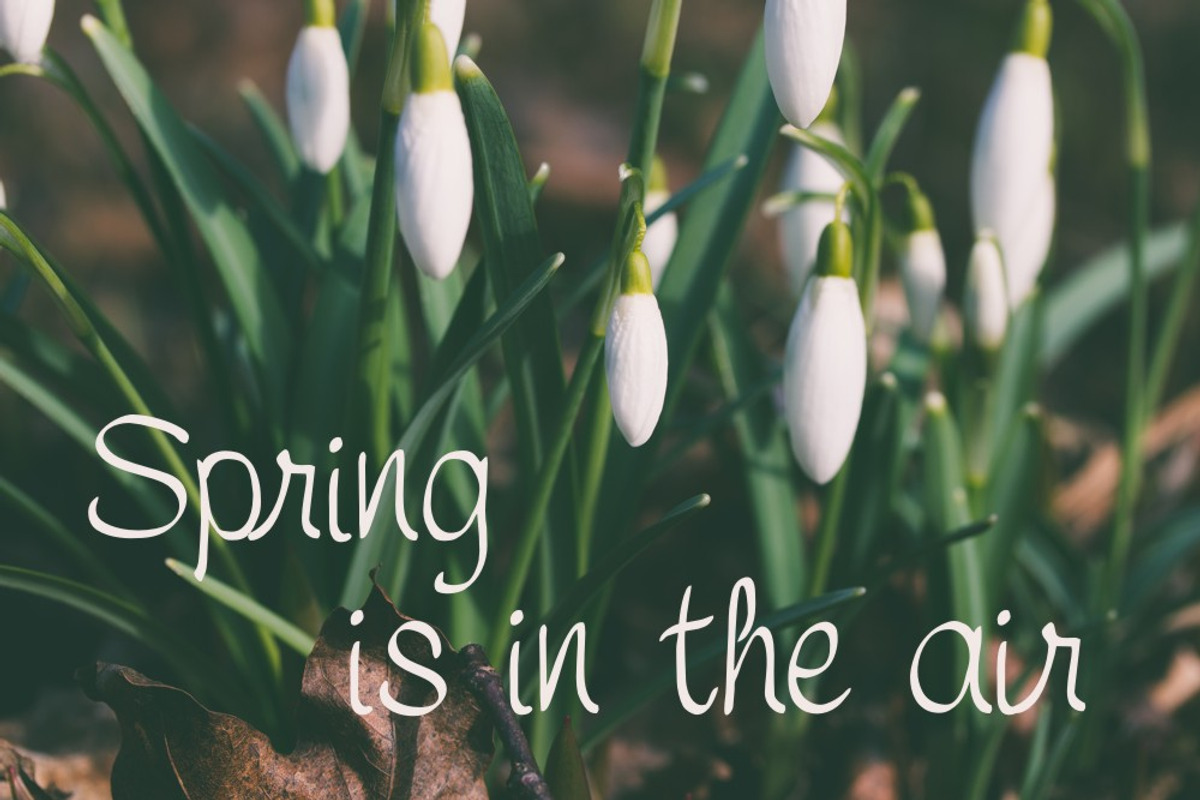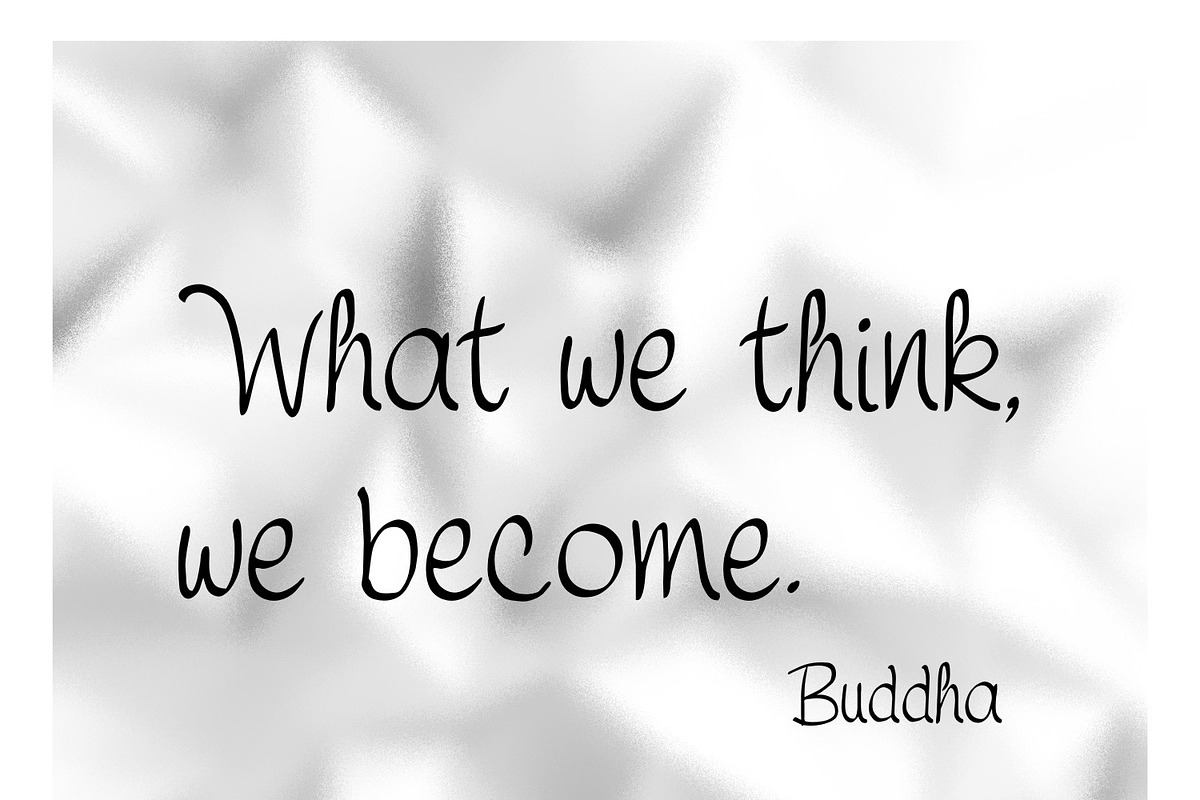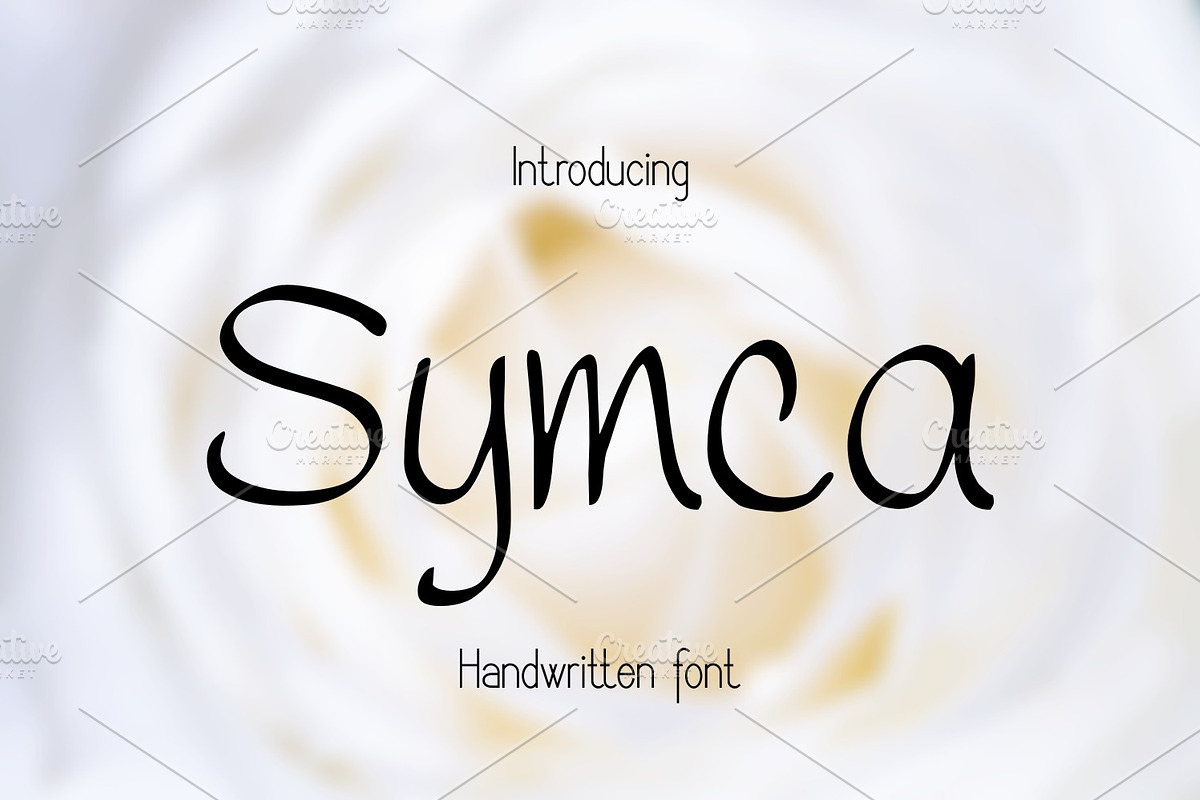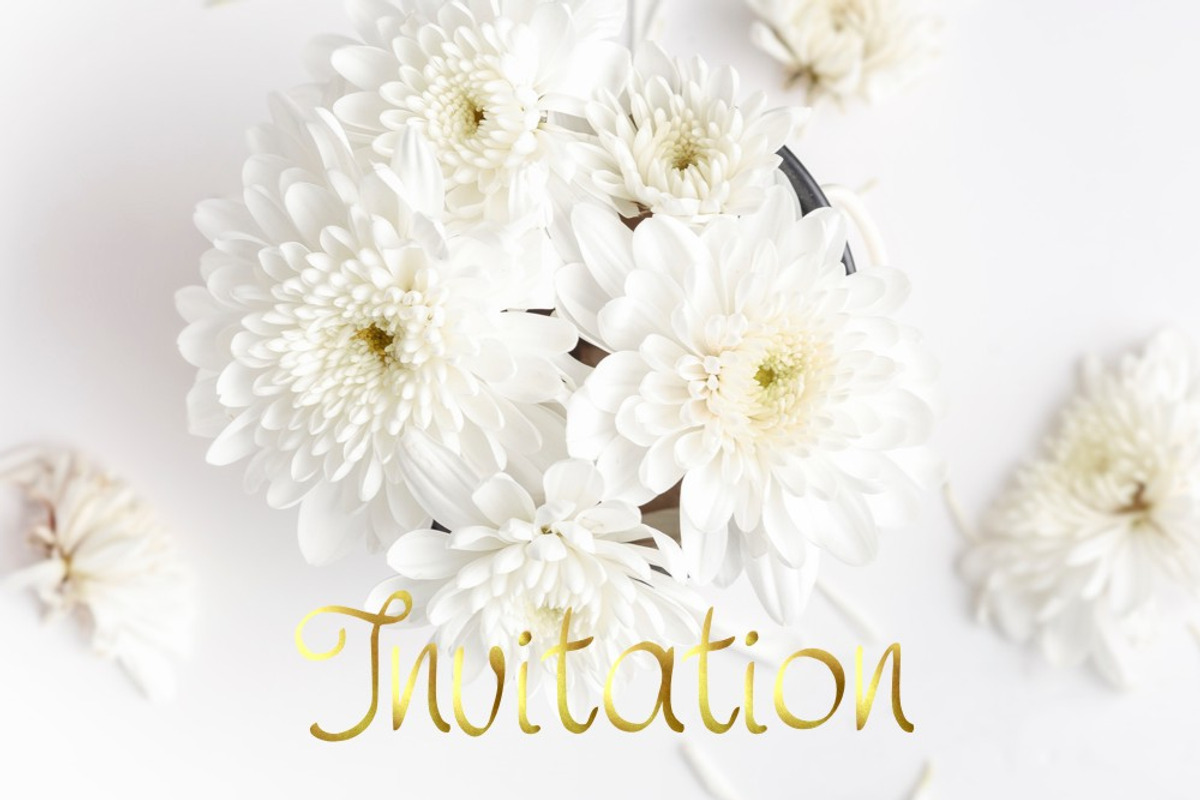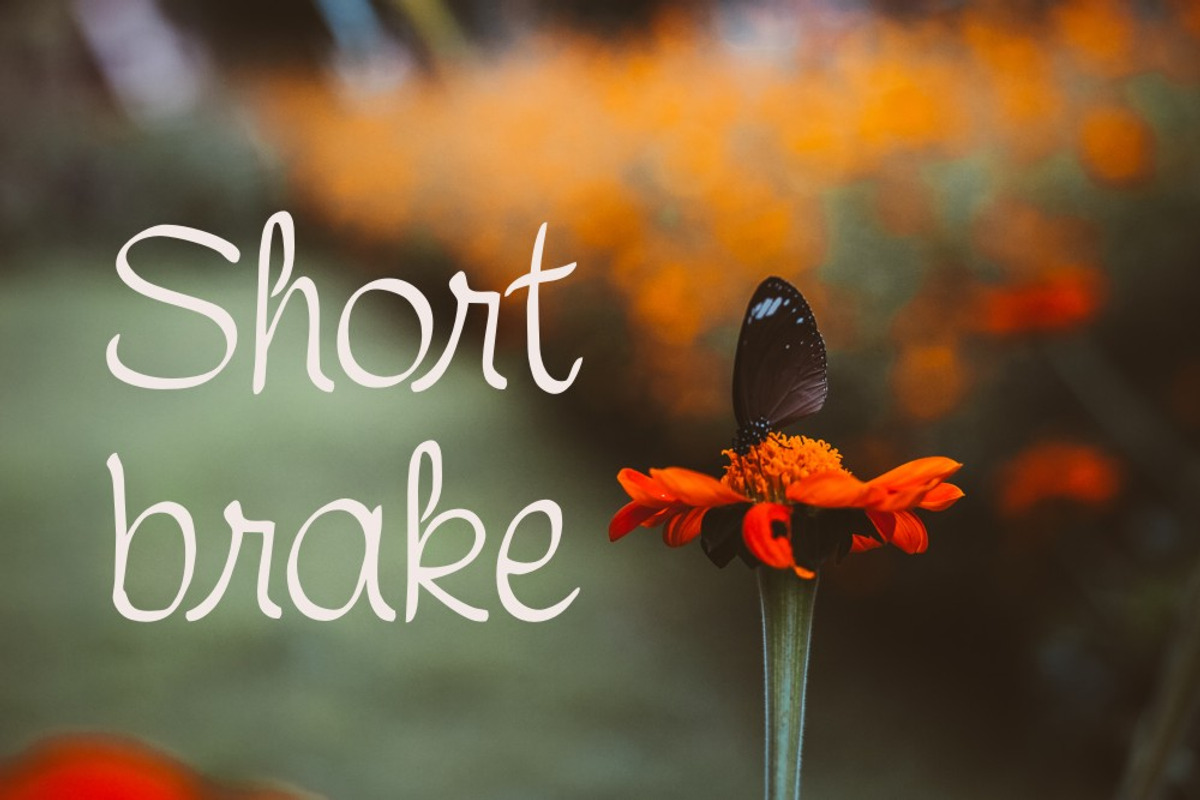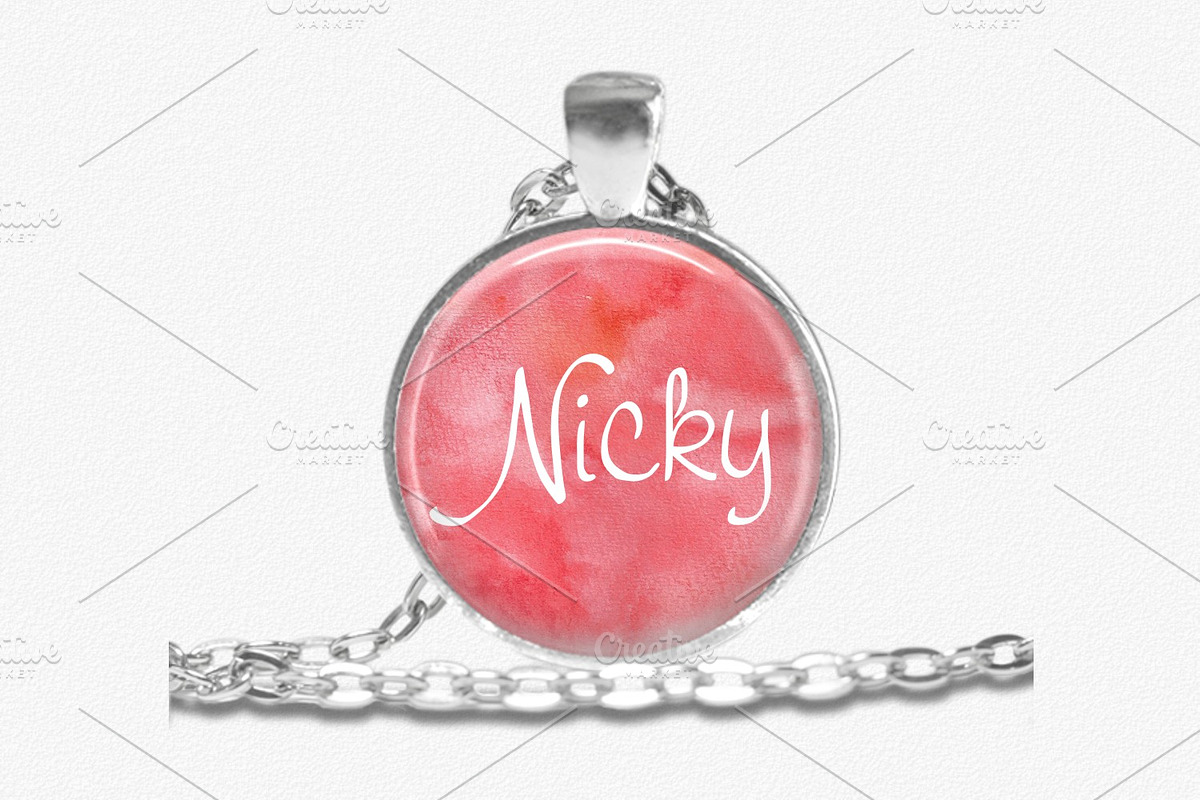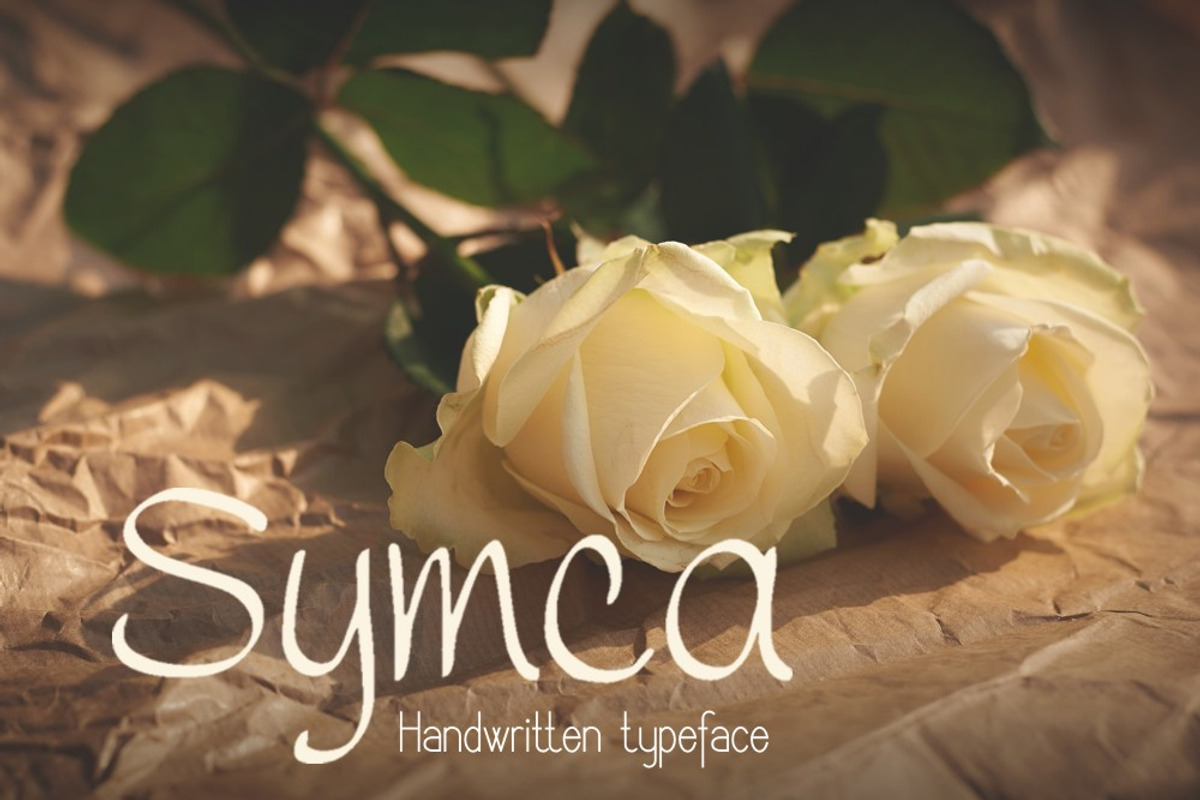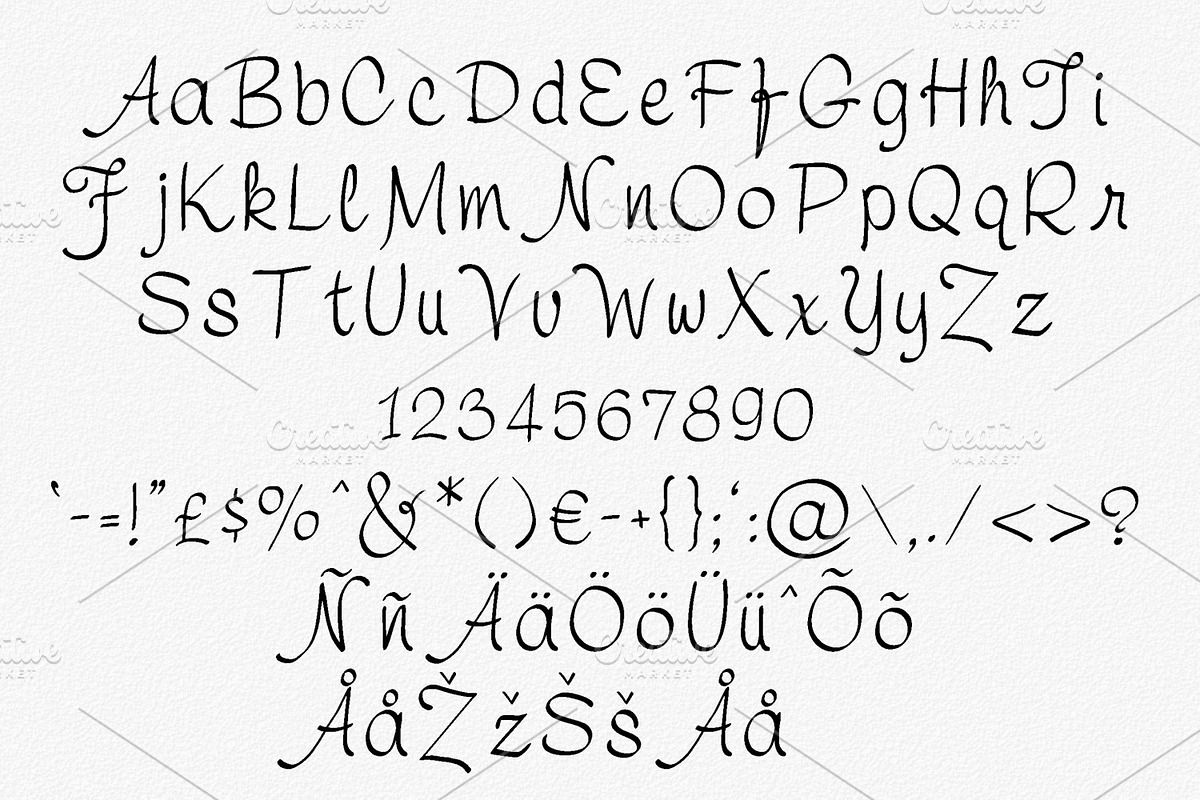
Symca Font
Symca Font by Digital Typeface Studio is a font selected for branding, posters, packaging, typography.
Why Symca Font is worth a look
Symca Font by Digital Typeface Studio fits naturally into Branding, posters, packaging, typography.